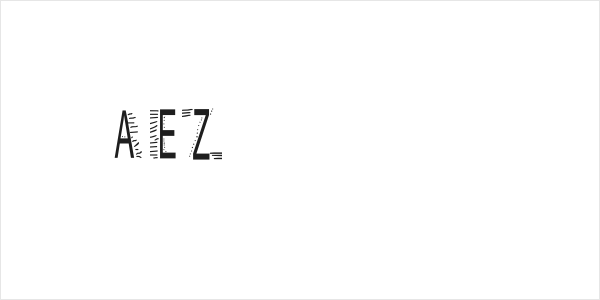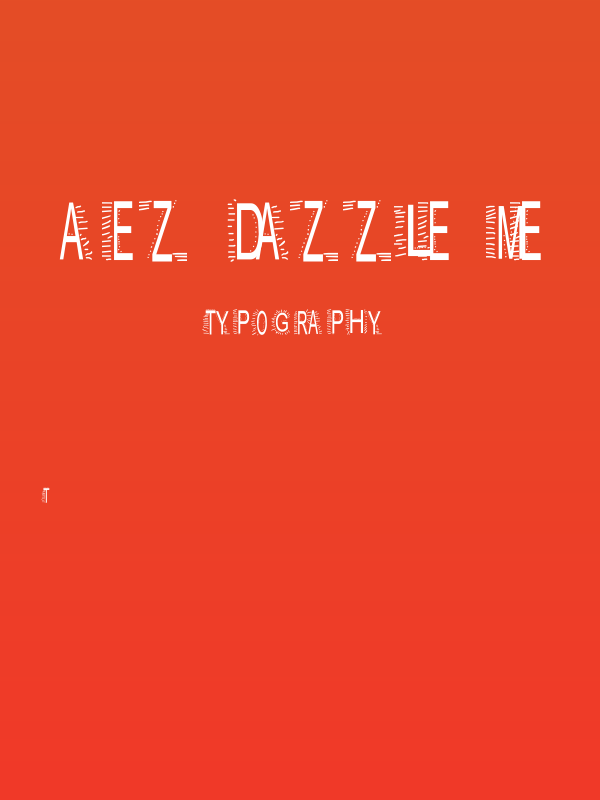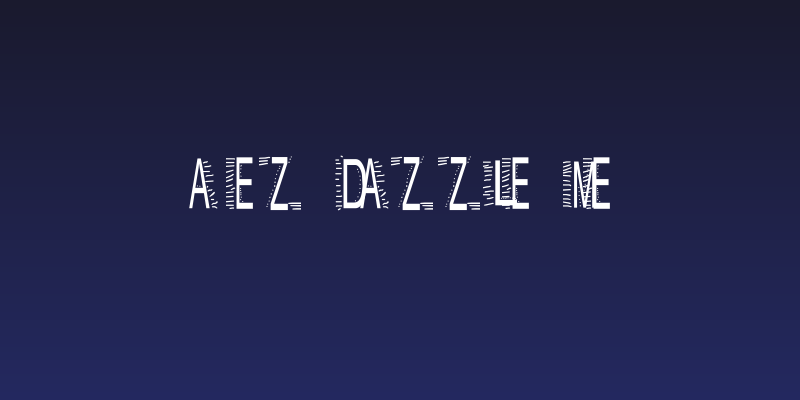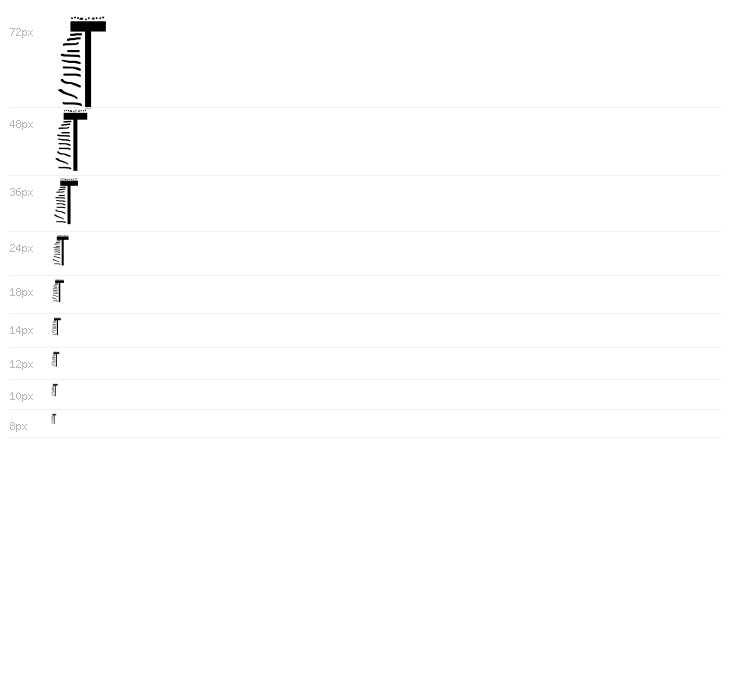
AEZ dazzle me Font
AEZ dazzle me Description
This font features a bold and striking design with a unique decorative style. Each character is adorned with a series of radiating lines, giving it a dynamic and energetic appearance. The uppercase letters are particularly eye-catching, with a strong presence that commands attention. The font maintains a consistent width across all characters, ensuring a uniform look. The playful embellishments add a sense of movement and excitement, making it ideal for creative and lively projects. Its distinct style makes it stand out, perfect for designs that require a bold statement.